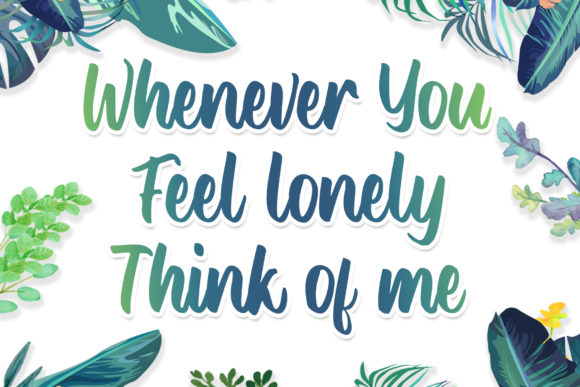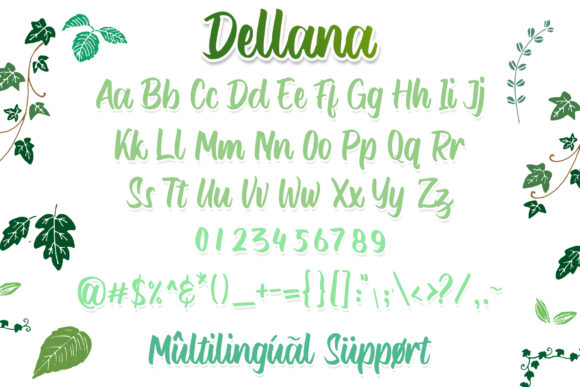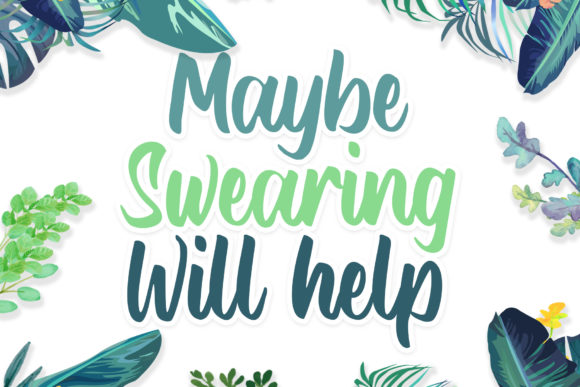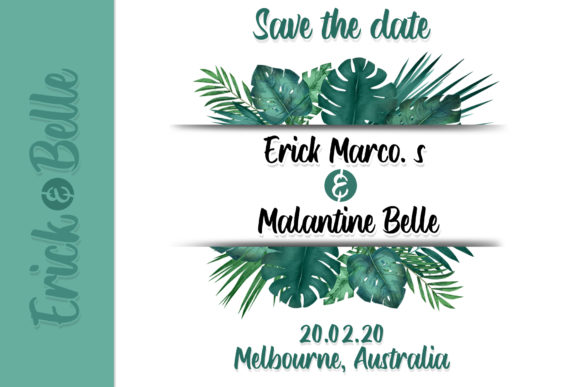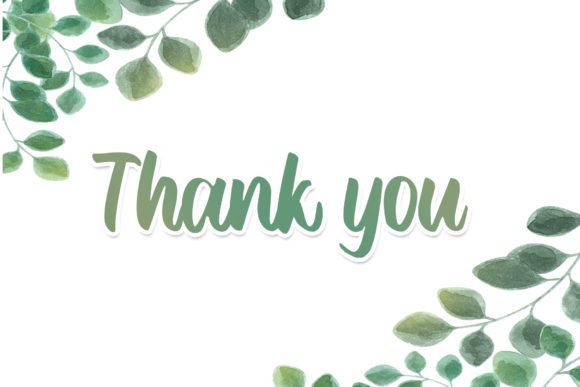
Introduction to Dellana Font
Have you ever stumbled upon a beautiful handwritten font that instantly sparks inspiration for your next creative project? For many designers, it’s a moment that can make all the difference between a bland design and a truly stunning one. I recall the time I discovered the Dellana Font, and it was love at first sight – its unique style and flair added a personal touch that elevated my designs to a whole new level.
Whether you’re a seasoned designer or just starting out, the Dellana Font is a valuable resource that can help you take your designs to the next level. Its high-quality design makes it perfect for a wide range of creative projects, from wedding invitations to blog posts. And the best part? It’s available for free download, complete with a transparent background for easy customization.
Dellana Font
- High-quality font suitable for various creative projects, including graphic design, digital art, and publishing.
- Transparent background, allowing for seamless integration with images and other design elements.
- Designed with precision and attention to detail, resulting in a crisp and clear font with high resolution (up to 300 DPI).
- Comes in multiple font sizes, from small to large, making it versatile for various design applications.
Honest Review: Dellana Font
I recently stumbled upon the Dellana Font and I must say it’s a game-changer for any creative project that requires a touch of elegance. The free download was a pleasant surprise, and I was thrilled to explore the possibilities.
Here are some things that I think work well with the Dellana Font:
- ✨ High quality and crisp typography, making it perfect for print and digital projects.
- ✨ The transparent background is a great feature, allowing for seamless integration with any design.
- ✨ The font’s versatility makes it suitable for various design applications, from logos to headings.
- ⚠️ The font may not be suitable for projects that require a more playful or casual tone.
- ⚠️ The font family is relatively small, which may limit its range of use.
Overall, I’m impressed with the Dellana Font. It’s a valuable design resource that can elevate any project. With its high quality and versatility, it’s definitely worth considering for your next creative project.
Dellana Font
Using Dellana Font in Your Creative Project
Tips for Getting the Most Out of Dellana Font
To get the most out of Dellana Font, experiment with different font sizes, colors, and combinations to create visually appealing designs.
Dellana Font is commonly used in creative projects such as logo design, branding, and marketing materials. It’s also a popular choice for designers looking for a high-quality font with a transparent background.
Alternatives to Dellana Font
The Great Vibes Font is a high-quality, elegant script font ideal for creative projects requiring a touch of sophistication. It features a transparent background, making it suitable for overlaying on images or videos. This font is perfect for designers looking for a modern and stylish design resource. In comparison to Dellana Font, Great Vibes Font offers a more refined and polished look.
The Alex Brush Font is a beautiful, handwritten font perfect for designers working on creative projects that need a personal touch. It’s available for free download and features a transparent background, making it easy to use in various design contexts. When to use: for wedding invitations, greeting cards, or any design project requiring a delicate and artistic feel. Compared to Dellana Font, Alex Brush Font offers a more cursive and artistic look.